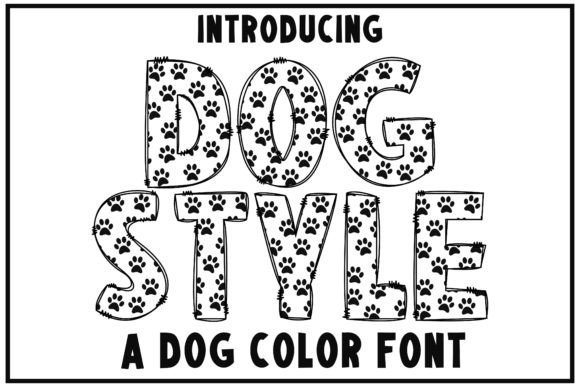
The Paws-itively Perfect Font for Dog Lovers
As a designer, there’s nothing quite like the thrill of discovering a new font that captures the essence of your latest project. It’s like stumbling upon a hidden treasure that makes all the difference in bringing your vision to life. For those who adore dogs, the search for the perfect font can be a long one – until now.
Meet Dog Style Font, a sweet and adorable color font that embodies the playfulness and authenticity of our canine companions. Whether you’re designing a dog-themed website, social media campaign, or merchandise, this font is the paw-fect choice. With its unique design and versatility, Dog Style Font is a valuable addition to any designer’s toolkit.
Dog Style Font Key Features
- Size: The font is available in 6 different sizes, ranging from 48 to 288 points, providing flexibility for various design applications.
- Unique Characteristics: Dog Style Font features a distressed, hand-drawn look with bold lines and rough textures, giving it a unique and eye-catching aesthetic.
- Resolution: The font is designed to be resolution-independent, ensuring it looks great at any resolution, from low to high DPI.
- Font Family: Dog Style Font is part of a larger font family, which includes multiple weights and styles, allowing designers to create a cohesive look across their designs.
- Language Support: The font supports a wide range of languages, including Latin, Cyrillic, and Greek scripts, making it suitable for global design applications.
Designer Review: Dog Style Font
At first glance, the Dog Style Font appears to be a quirky and playful addition to any design project. ✨ Its unique, handwritten style can add a touch of whimsy to text-based elements, making it perfect for projects that require a lighthearted tone.
One of the strengths of the Dog Style Font is its versatility. ✨ It comes in a range of weights, from light to bold, allowing designers to customize the font to suit their specific needs. The font also includes a range of punctuation marks and symbols, making it a great choice for designers who want to add a bit of flair to their designs.
While the Dog Style Font has many strengths, there are a few limitations to be aware of. ⚠️ The font can be difficult to read at small sizes, and the irregular letterforms may not be suitable for projects that require a high level of professionalism or sophistication.
- Difficulty reading at small sizes
- Irregular letterforms may not be suitable for professional projects
Overall, the Dog Style Font is a great choice for designers who want to add a bit of personality to their projects. While it may not be suitable for every project, its unique style and versatility make it a valuable addition to any designer’s toolkit.
Tips: Use Dog Style Font to add a playful touch to your designs, such as social media graphics, posters, and flyers.
Tips: Use Dog Style Font to create custom typography for logos, branding materials, and editorial designs.
Tips: Use Dog Style Font to add a touch of whimsy to your presentations, reports, and documents.
Dog Style Font is perfect for:
- Social media graphics and posts
- Posters and flyers
Alternatives to Dog Style Font for Designers
Great Vibes is a modern, elegant script font perfect for adding a touch of sophistication to designs. It’s ideal for use in titles, headings, and quotes. When to use: Fashion, luxury, and lifestyle brands.
Comparison to Dog Style Font: Great Vibes has a more refined and polished feel, while Dog Style Font has a more playful and casual vibe. Great Vibes is better suited for formal designs, whereas Dog Style Font is ideal for more casual and creative projects.